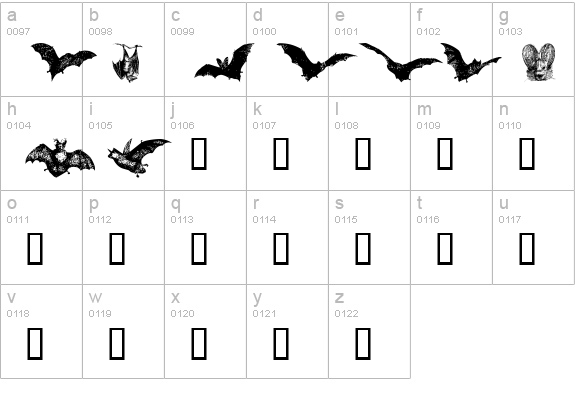
BatBats Font Details
Introducing BatBats font - a whimsical and playful typeface that brings a touch of fun to any design project. This unique font features bat-shaped characters that add a spooky and mysterious element to your text. Perfect for Halloween-themed creations, children's books, posters, and more, BatBats font is sure to make your designs stand out. What's even better is that BatBats font is completely free to download at FontsMarket.com. Yes, you read that right - this captivating font is available for free, allowing you to unleash your creativity without any cost. So why wait? Head over to FontsMarket.com and grab your copy of BatBats font today to add a touch of charm and character to your designs.